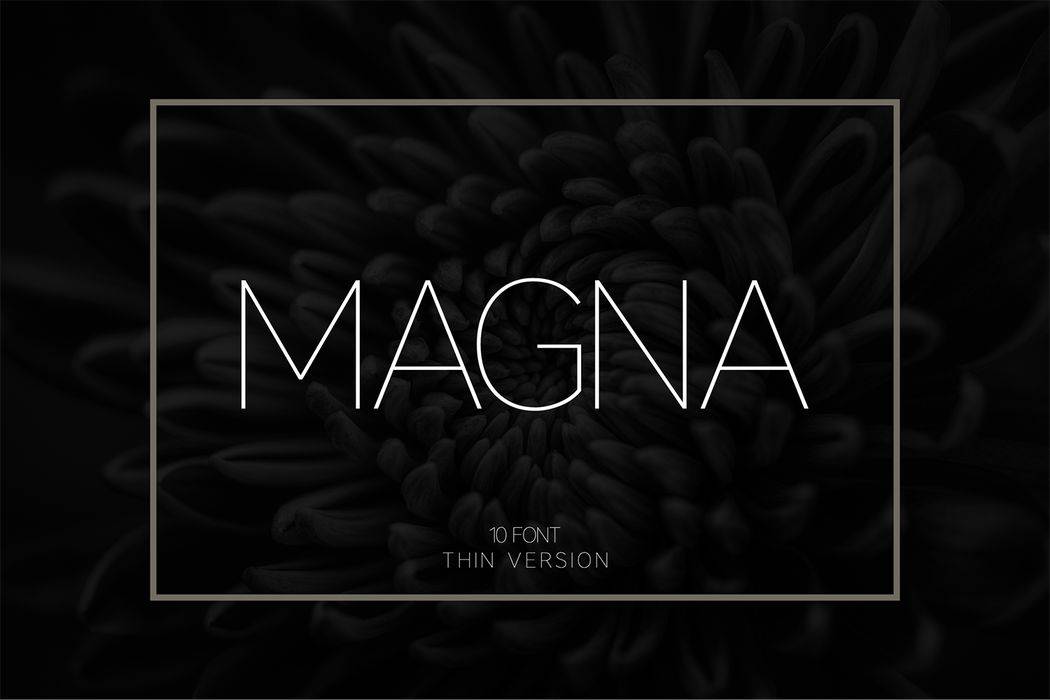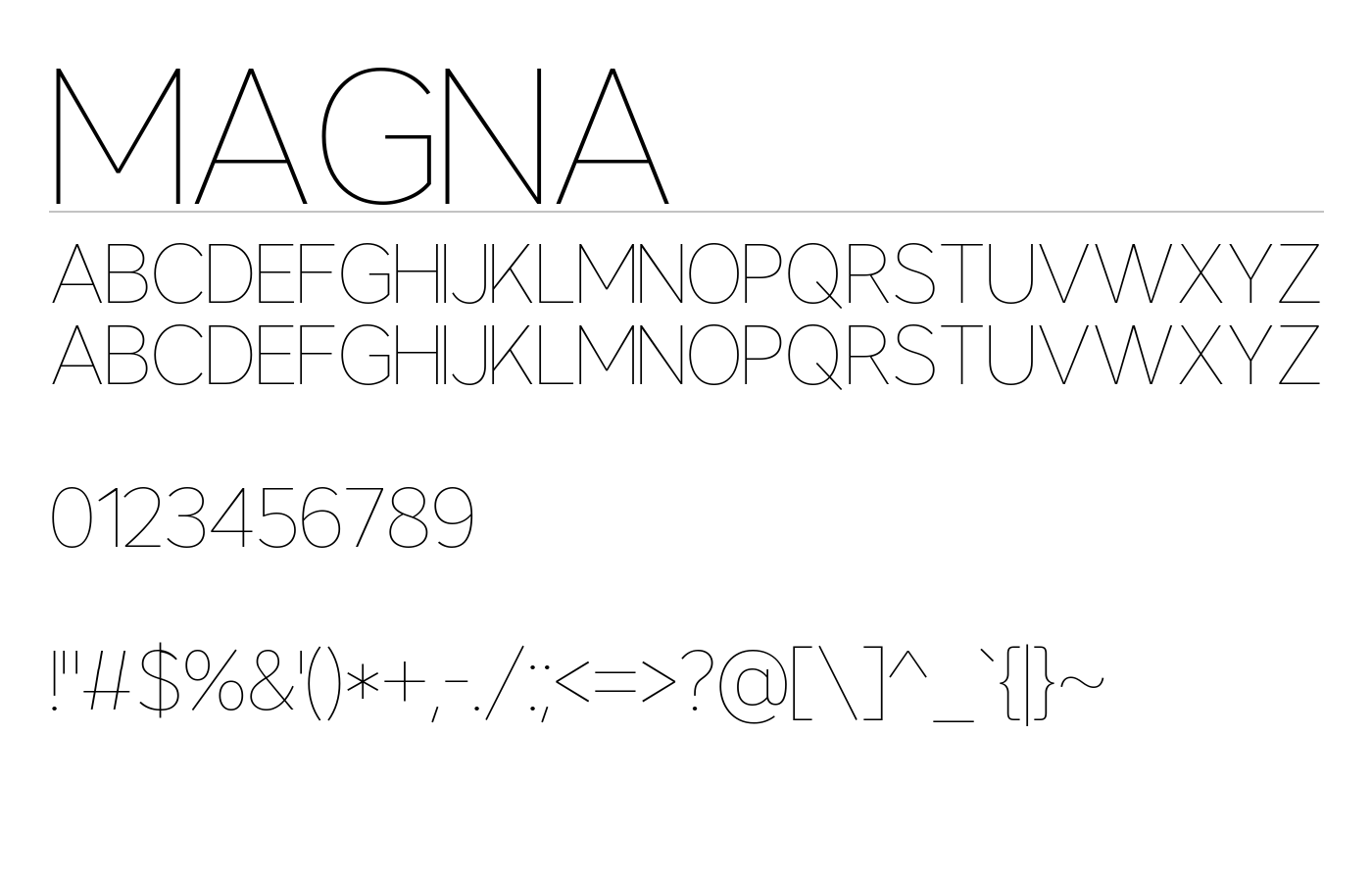
Magna Thin is a sleek, modern sans serif font characterized by its ultra-light weight and elegant, narrow letterforms. Its clean lines and high x-height make it perfect for stylish headlines and contemporary branding that aim to convey sophistication and minimalism. This font works especially well in fashion, luxury, and editorial designs where a refined and airy look is desired.
Magna Thin Font
About Magna Thin Font